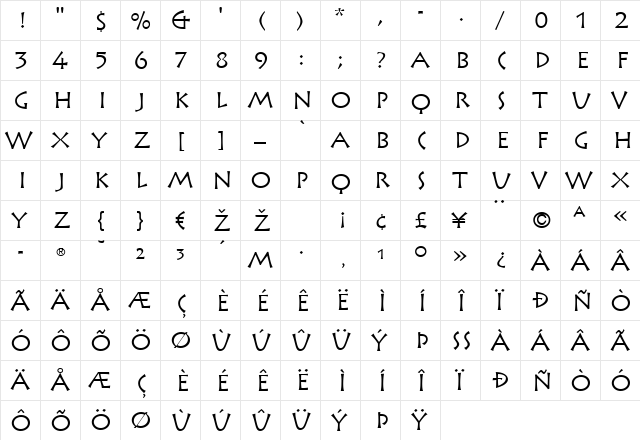
Rusticana LT Roman Regular
Design Context for Rusticana LT Roman Typeface
Rusticana LT Roman offers clean, dependable letterforms without strong stylistic allegiance, making it a practical choice for designers who need flexibility. Its slender proportions lend an understated elegance to any composition.